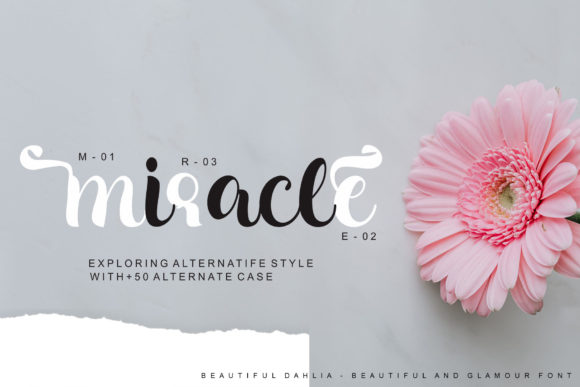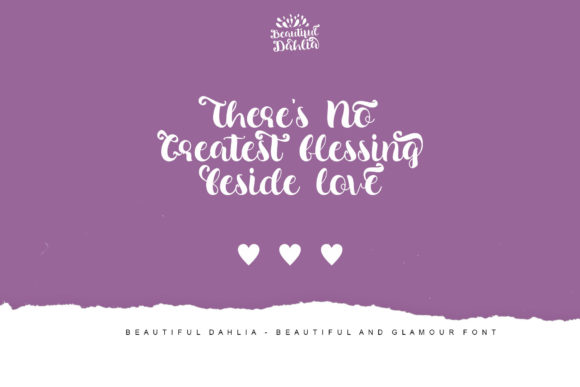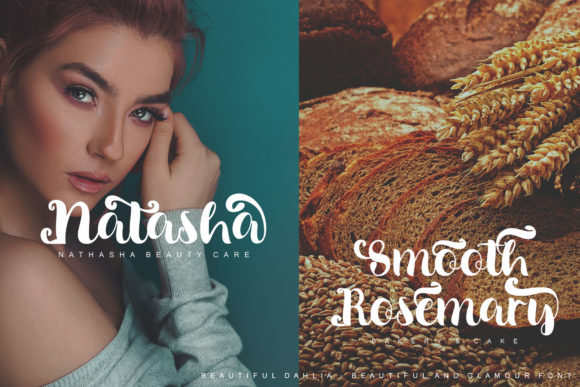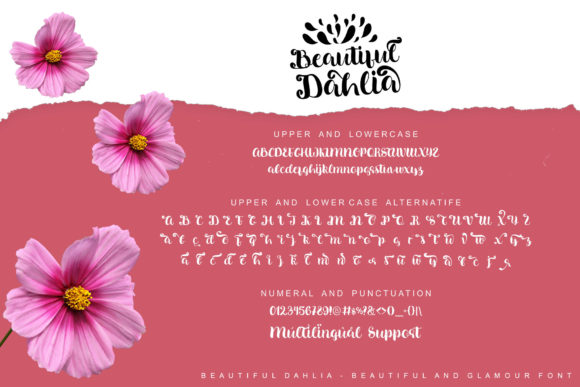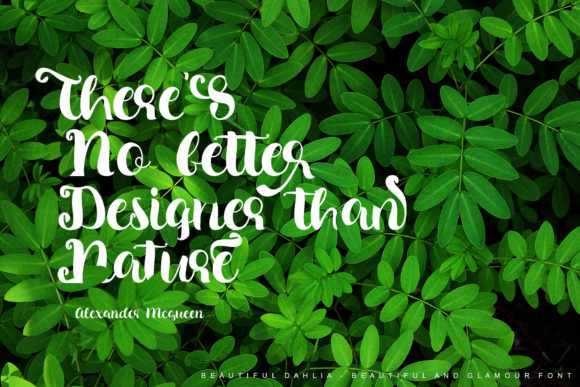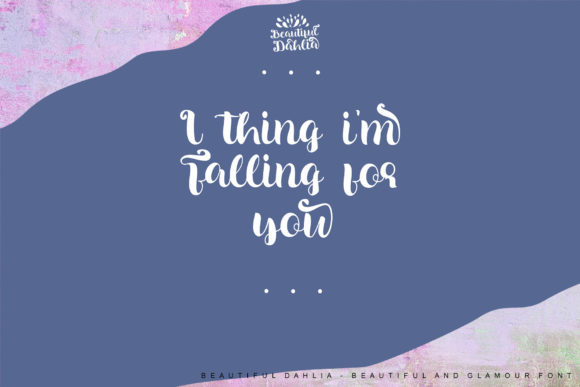
Introducing Beautiful Dahlia: The Cute and Friendly Script Font You Need
Are you tired of using the same old fonts for your designs? Look no further than Beautiful Dahlia, a charming script font that’s sure to add a touch of personality to your creations. With its quirky and authentic feel, this font is perfect for designers and crafters looking to add some whimsy to their work.
The Characteristics of Beautiful Dahlia
Beautiful Dahlia is a script font that’s all about charm and character. Its unique and playful design makes it incredibly versatile, allowing it to be used in a wide variety of contexts. Whether you’re creating wedding invitations, social media posts, or greeting cards, this font is sure to make your designs stand out.
One of the standout features of Beautiful Dahlia is its quirky feel. This font isn’t afraid to be a little different, with subtle imperfections and irregularities that give it a delightfully handmade look. At the same time, it’s still incredibly legible and easy to read, making it perfect for use in both digital and print designs.
Uses for Beautiful Dahlia
So what can you use Beautiful Dahlia for? The possibilities are endless! Here are just a few ideas to get you started:
- Wedding Invitations: Create gorgeous and unique wedding invitations that set the tone for a special day. Beautiful Dahlia’s elegant and playful design makes it perfect for wedding stationery.
- Stationery Art: Add a touch of personality to your stationery with Beautiful Dahlia. From greeting cards to thank-you notes, this font is sure to make your correspondence stand out.
- Social Media Posts: Make your social media posts more engaging and eye-catching with Beautiful Dahlia. Whether you’re creating graphics for Instagram, Facebook, or Twitter, this font is sure to grab attention.
- Greeting Cards: Create cute and personalized greeting cards for any occasion. Beautiful Dahlia’s playful design makes it perfect for birthdays, holidays, and more.
Why Choose Beautiful Dahlia?
With so many fonts to choose from, why should you choose Beautiful Dahlia? Here are just a few reasons:
- Unique Design: Beautiful Dahlia’s quirky and playful design sets it apart from other fonts. Its unique character makes it perfect for designers and crafters looking to add some personality to their work.
- Versatility: This font is incredibly versatile, making it suitable for use in a wide variety of contexts. From wedding invitations to social media posts, Beautiful Dahlia is the perfect choice.
- Easy to Read: Despite its playful design, Beautiful Dahlia is still incredibly legible and easy to read. This makes it perfect for use in both digital and print designs.
Tips for Using Beautiful Dahlia
Here are a few tips for getting the most out of Beautiful Dahlia:
- Experiment with Sizes: Beautiful Dahlia looks great in a variety of sizes. Experiment with different sizes to find the one that works best for your design.
- Pair with Other Fonts: Beautiful Dahlia pairs well with other fonts. Try pairing it with a bold sans-serif font for a striking contrast.
- Use it Sparingly: While Beautiful Dahlia is a beautiful font, it can be overwhelming if used too much. Use it sparingly to add a touch of personality to your design.
Beautiful Dahlia is a charming script font that’s perfect for designers and crafters looking to add some personality to their work. With its quirky and authentic feel, this font is sure to make your designs stand out. Whether you’re creating wedding invitations, social media posts, or greeting cards, Beautiful Dahlia is the perfect choice. So why not give it a try and see what beautiful creations you can come up with?